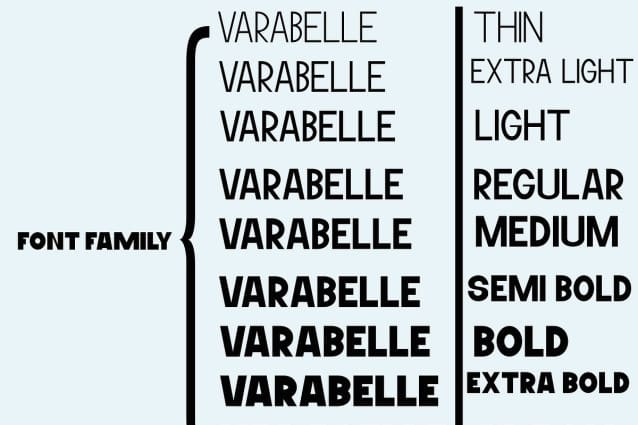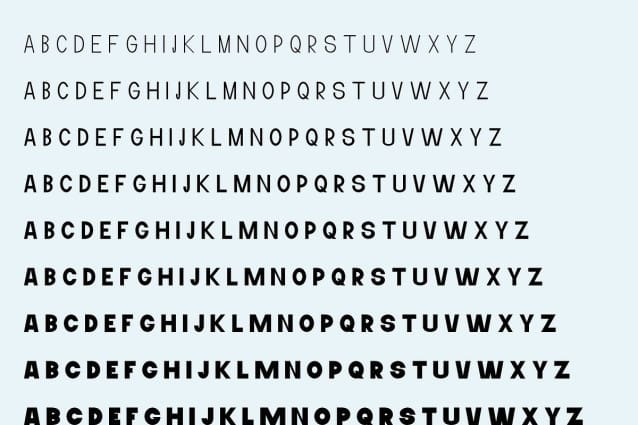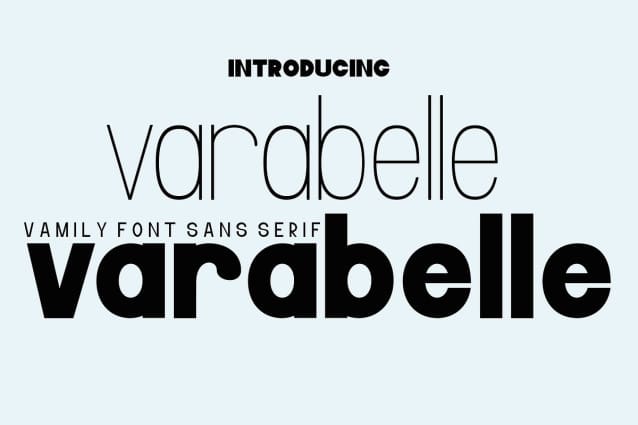
Varabelle Font
Varabelle Font is a geometric sans-serif family typeface available in nine thicknesses. This is a simple and elegant sans font family, this family font is very suitable especially for headlines, titles, brands, posters, packaging, titles, logos, and so on